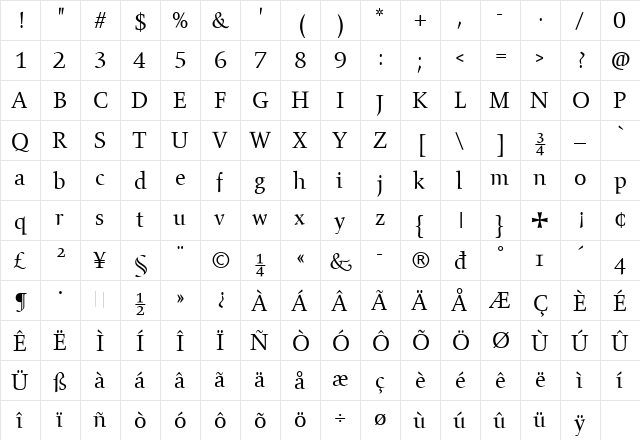
Gilgamesh Book Regular
Design Context for Gilgamesh Book Typeface
Gilgamesh Book offers clean, dependable letterforms without strong stylistic allegiance, making it a practical choice for designers who need flexibility.